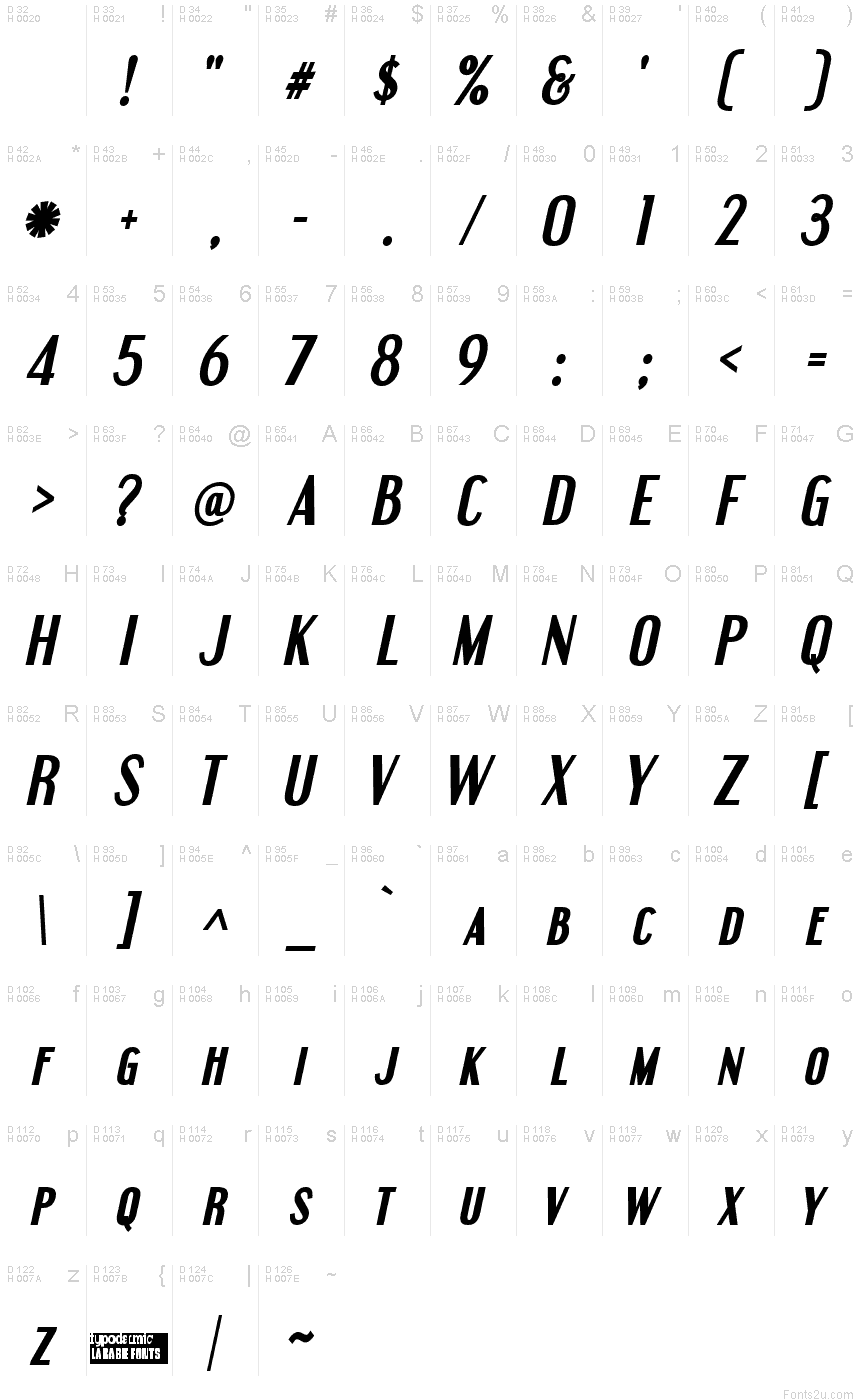
Engebrechtre Bold Italic font by Ray Larabie is a free sans serif typeface built for raw speed and impact. Its tall, compressed letters and aggressive forward slant feel like they’re leaning into the wind, with dense black strokes that hit the page like a stencil on steel. The rhythm is tight and urgent, giving headlines a sense of motion even when they’re standing still.
Using Engebrechtre Bold Italic, your work snaps into “high-octane” mode-great for racing posters, esports logos, tech branding, sci‑fi titles, album covers, and streaming graphics. This free font shines when you set it large and bold; pair it with a clean, neutral sans serif at smaller sizes to keep layouts sharp and readable.